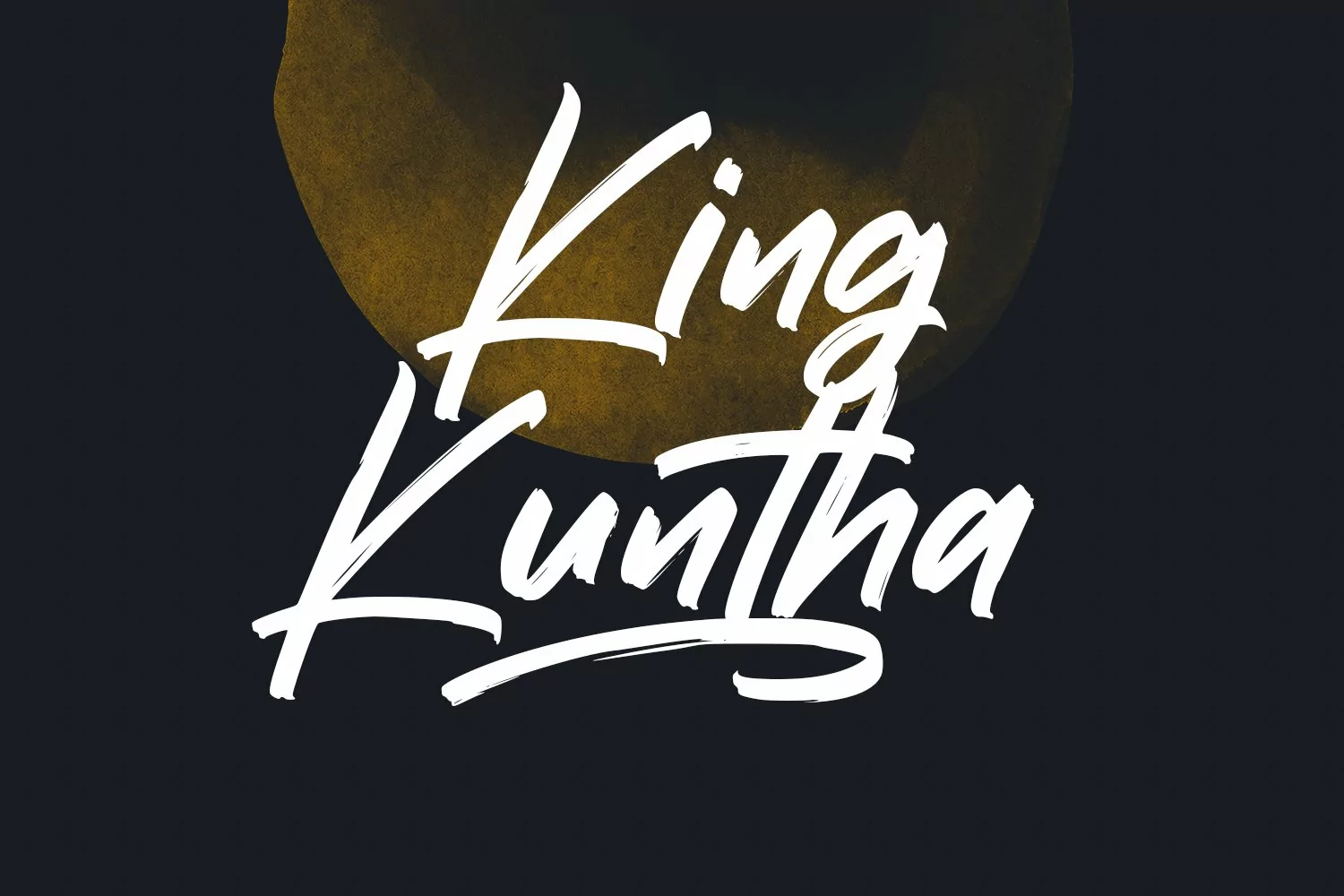
Fattalsfort is a Handwritten Brush font. With Bold raw brush stroke, slant and fun character with a bit of ligature and swashes. To give you an extra creative work. Fattalsfort font support multilingual more than 100+ language. This font is good for logo design, Social media, Movie Titles, Books Titles, a short text even a long text letter and good for your secondary text font with sans or serif. Make a stunning work with Fattalsfort font.